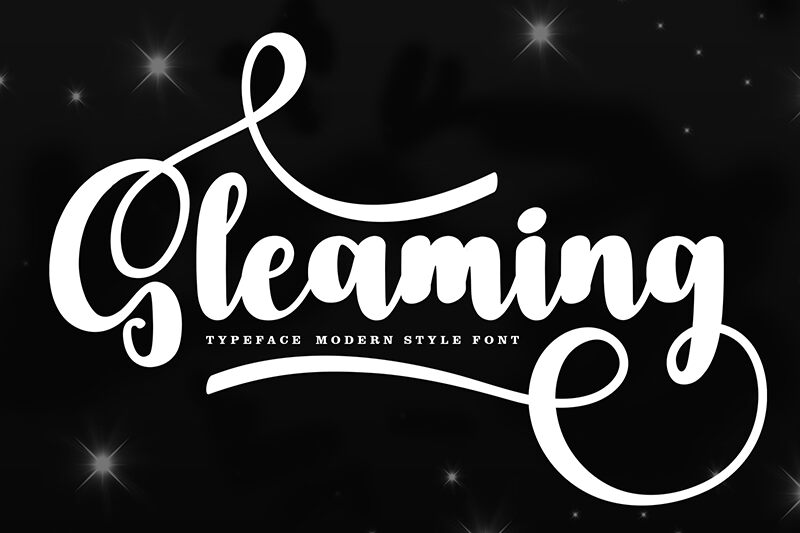
Gleaming
Gleaming font by Andi Moz is a free brush font that is elegant, expressive, and flowing. Impressive in design due to its extravagant curves, each one of its characters manages to keep readers thrilled as they wait for the next. Make it a part of your next display or print project for modern inviting results.
Include Gleaming in book covers and titles, posters or banners relating to social issues, artist albums and concert tickets along with usable passes. Its handwritten style will also be ideal for TV show graphics such as intro sequences or ending credits whether added on-screen or via clips like DVDs.